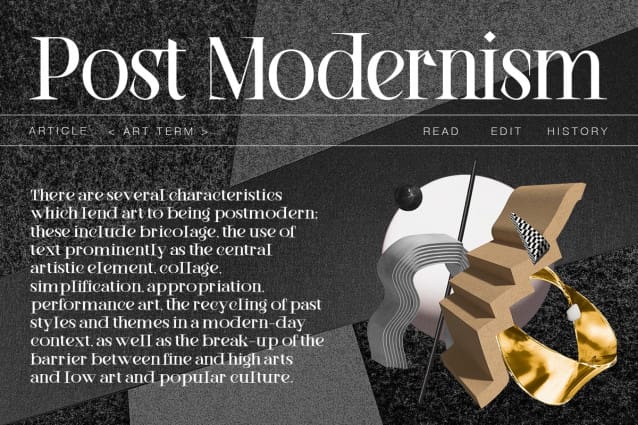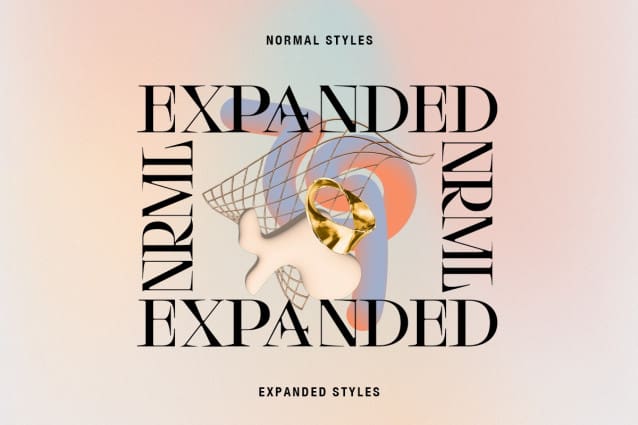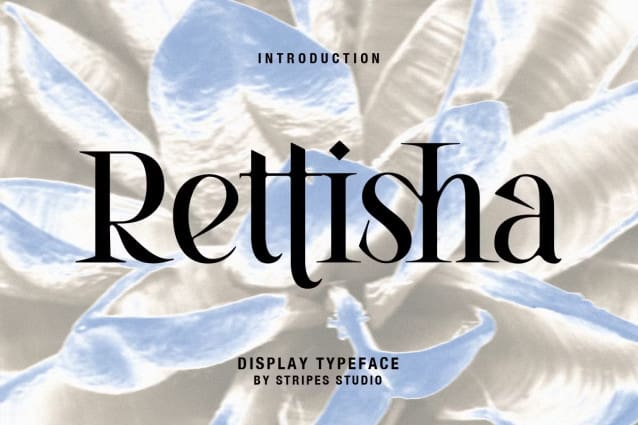
Rettisha Font
Rettisha Font is a stylish serif with beautiful ligatures. Available in two styles: Normal and Expanded fonts. Designed with clean and high contrast. Add interest with adding beautiful ligatures to make your typography truly unique. Perfect for anything your creativity. To access the Opentype Ligatures you will need software that supports Opentype features in fonts and also PUA unicodes support for other software.